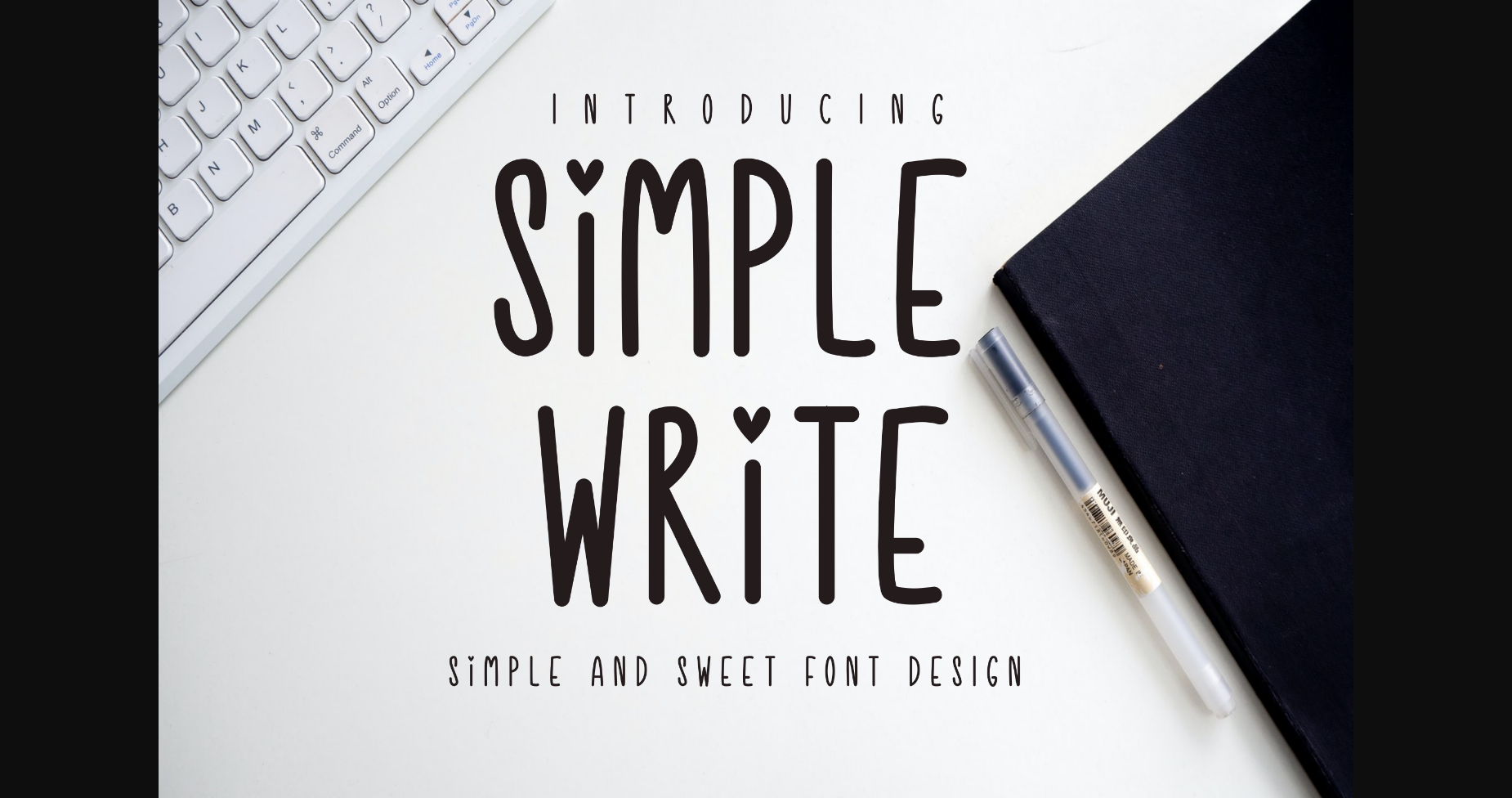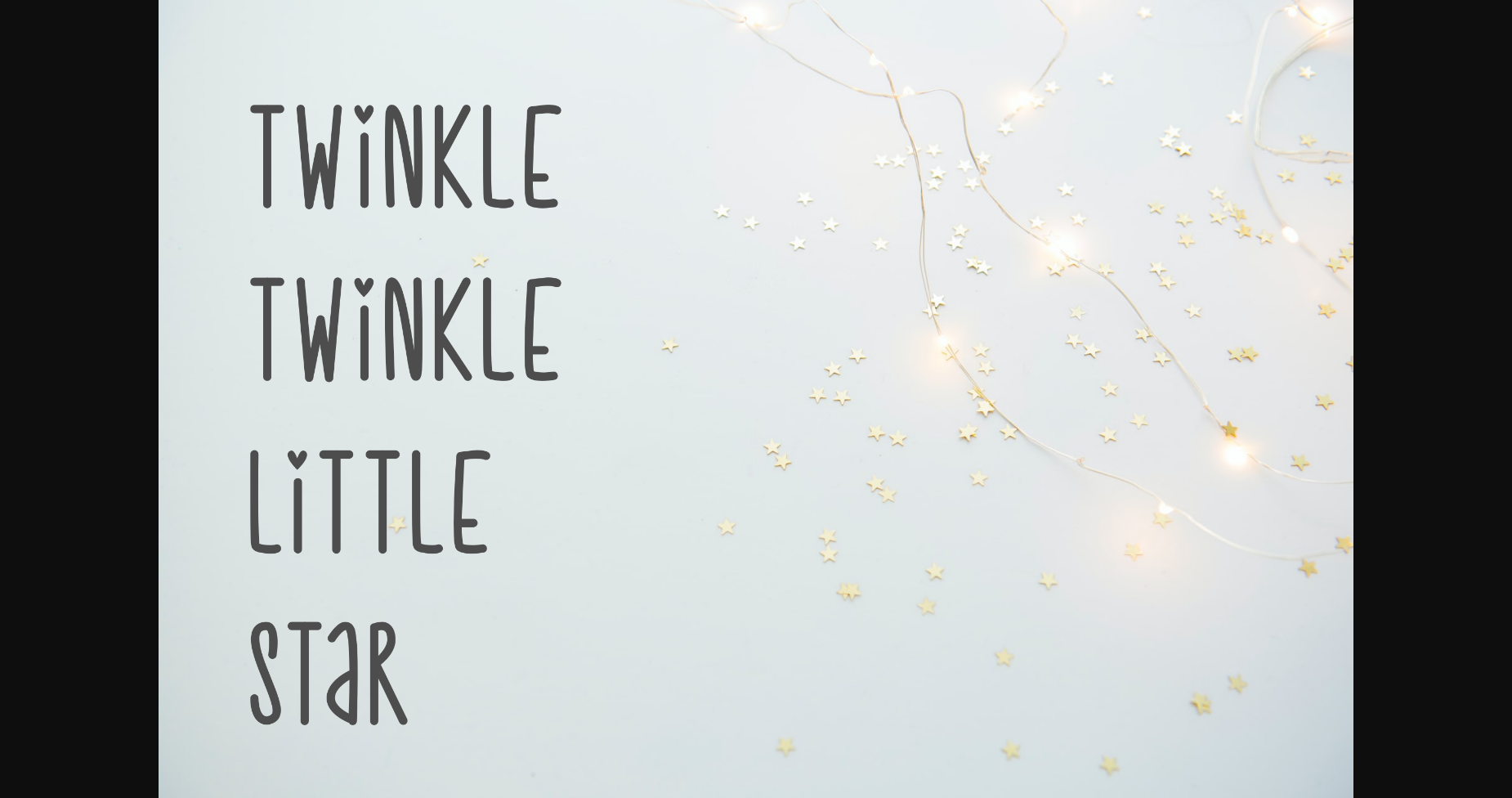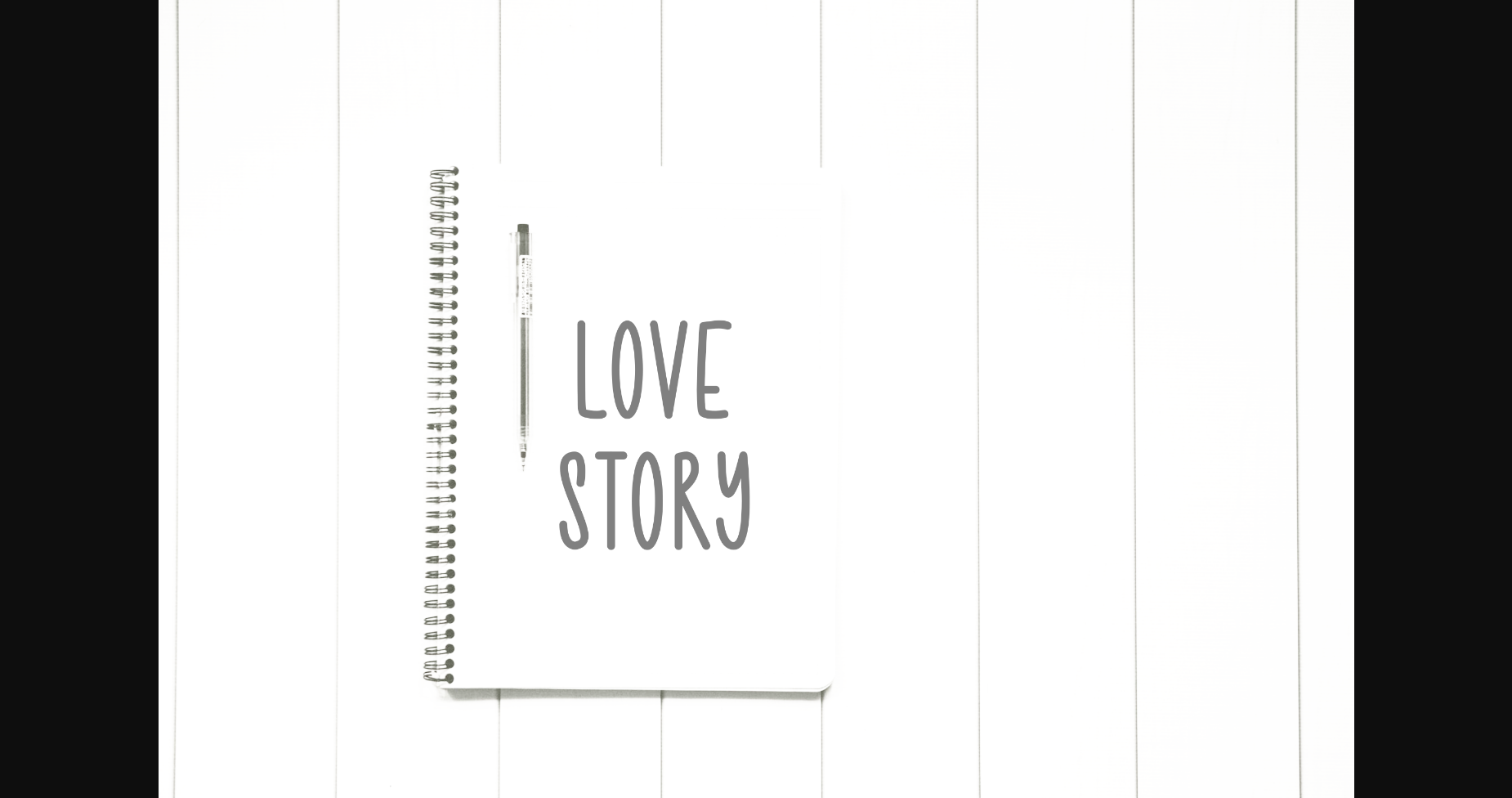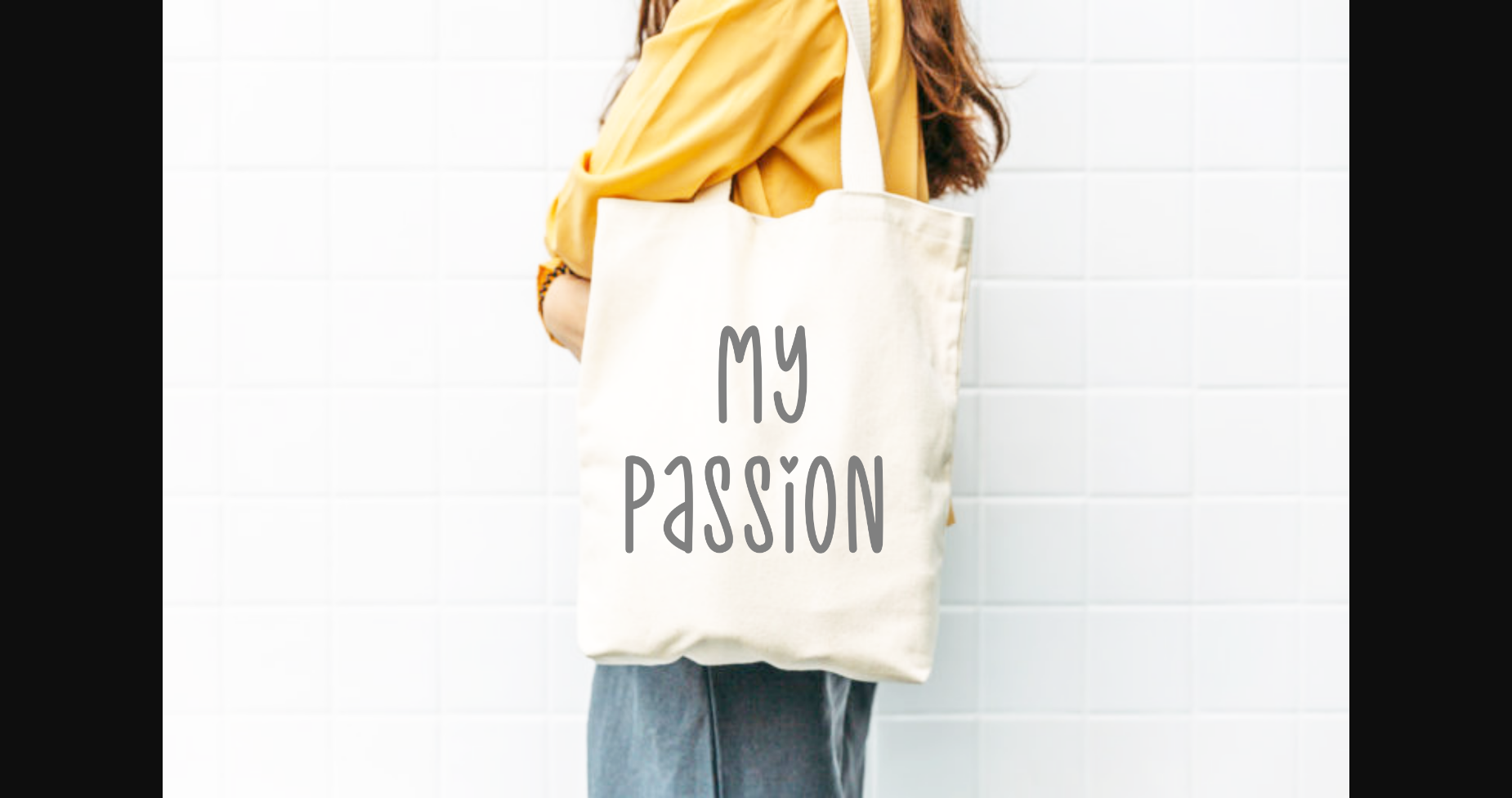
HomeSans Serif FontsSimple Write Font Sans Serif Fonts Simple Write Font FacebookXPinterestWhatsApp 1 of 6 ... Simple Write Font Poster 2... Simple Write Font Poster 3... Simple Write Font Poster 4... Simple Write Font Poster 5... Simple Write Font Poster 6... About Simple Write Font Simple Write is a tall, cute, and simple sans serif font. Its natural and unique style makes it incredibly fitting to a large pool of designs. DOWNLOAD NOW People also explored Riverside Avenue Font Ironside Font Frank Martin Font Malibu Holiday Font Nebula Lufia Font Just Simple Font Rubicela Font Hey Summer Font Kazaqe Font 431 0 TagsSimple Write Font Previous articleAbsalukea FontNext articleMiracle Nighty Font LEAVE A REPLY Cancel reply Comment: Please enter your comment! Name:* Please enter your name here Email:* You have entered an incorrect email address! Please enter your email address here Website: Save my name, email, and website in this browser for the next time I comment. Personal Use Free Alista Font Personal Use Free Read more about this font Legacy Personal Use Free Read more about this font The Lima Personal Use Free Read more about this font Geuli Font Personal Use Free Read more about this font BLOG Top 7 Google Fonts Alternatives for Faster and Privacy-Friendly Web Design (2025) Top 7 Google Fonts Alternatives for Faster and Privacy-Friendly Web Design (2025) When it comes to web typography, Google Fonts has long been the go-to... The 10 Best Handwriting Fonts to Add Personality to Your Designs Free Fonts Risk: Why Free Fonts Can Be Dangerous for Designers Where to Buy American Fonts Online in 2024